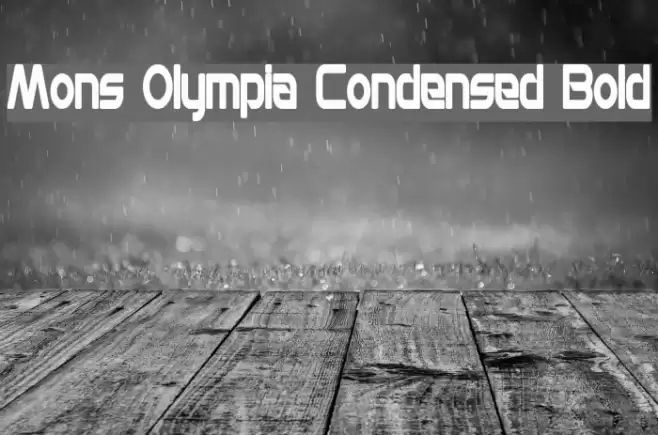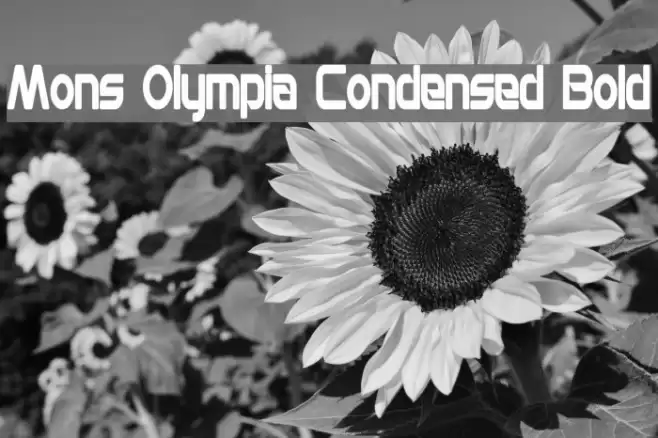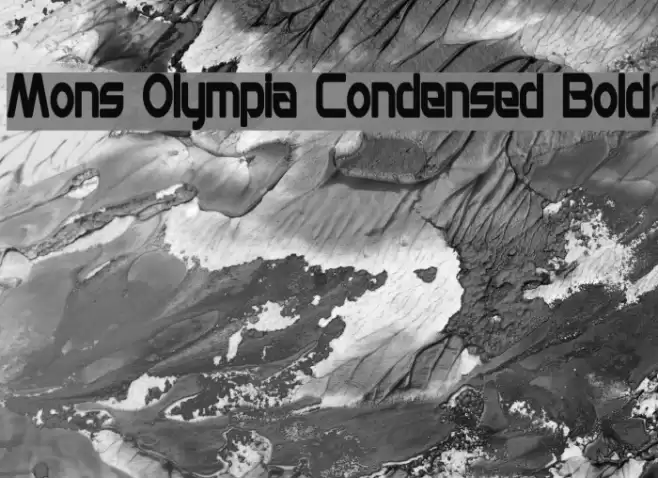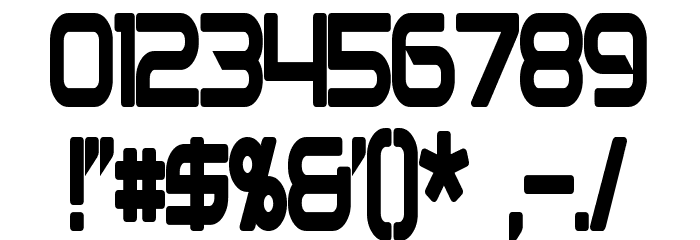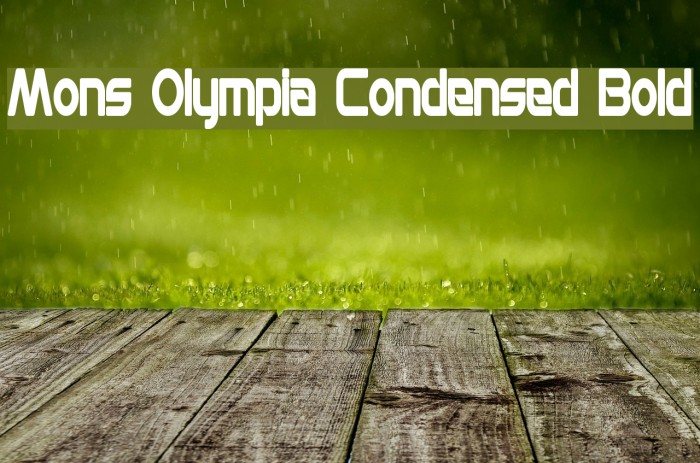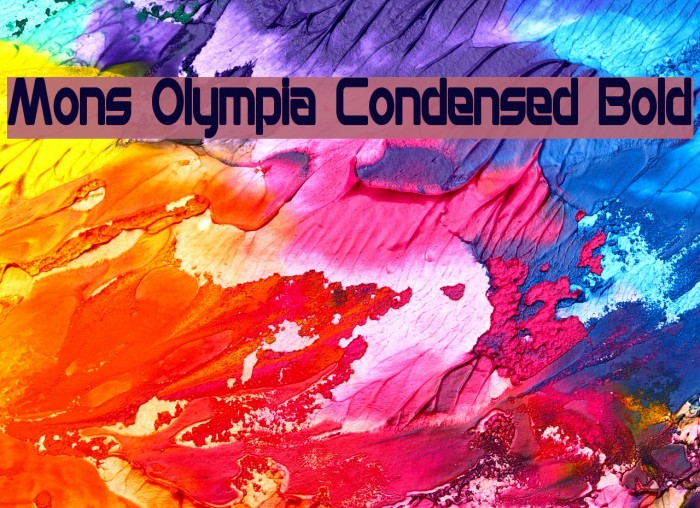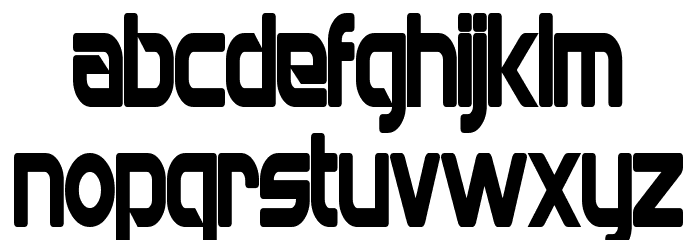
Mons Olympia Condensed Bold Font
Mons Olympia Condensed Bold Description
This font features a bold and condensed style with a modern and futuristic aesthetic. The characters are geometric with rounded edges, creating a smooth and cohesive appearance. The uppercase and lowercase letters maintain a consistent height, contributing to a uniform look. The numerals and special characters follow the same design principles, ensuring readability and visual harmony. This font's boldness and condensed width make it suitable for impactful designs where space is limited.
A bold, condensed, and modern font with geometric, rounded characters.
- Proposed Projects: Ideal for futuristic branding, tech-related projects, posters, and headlines where a strong visual impact is needed.